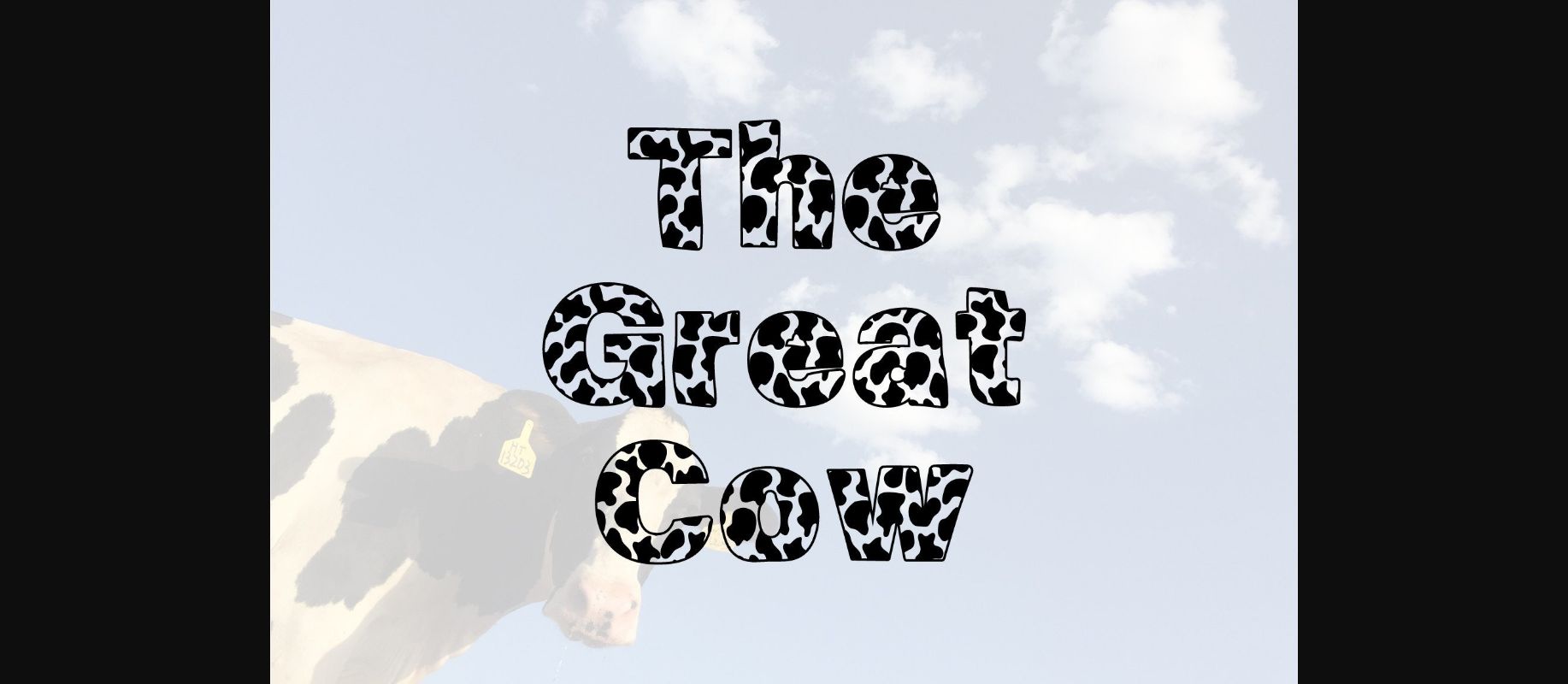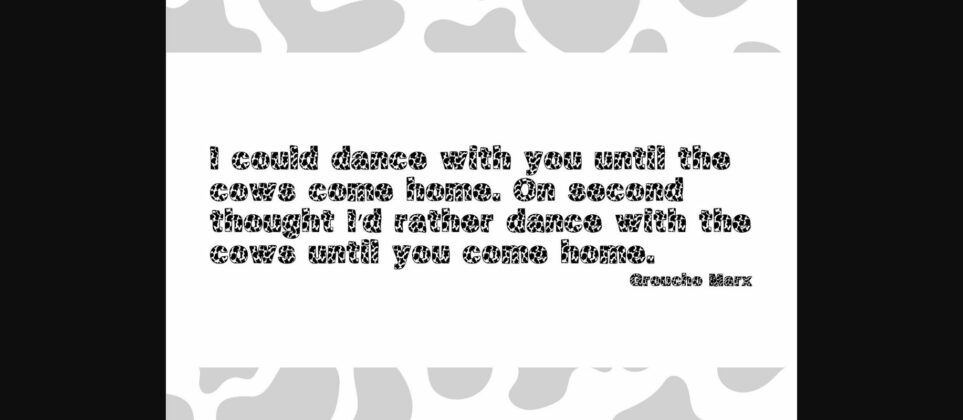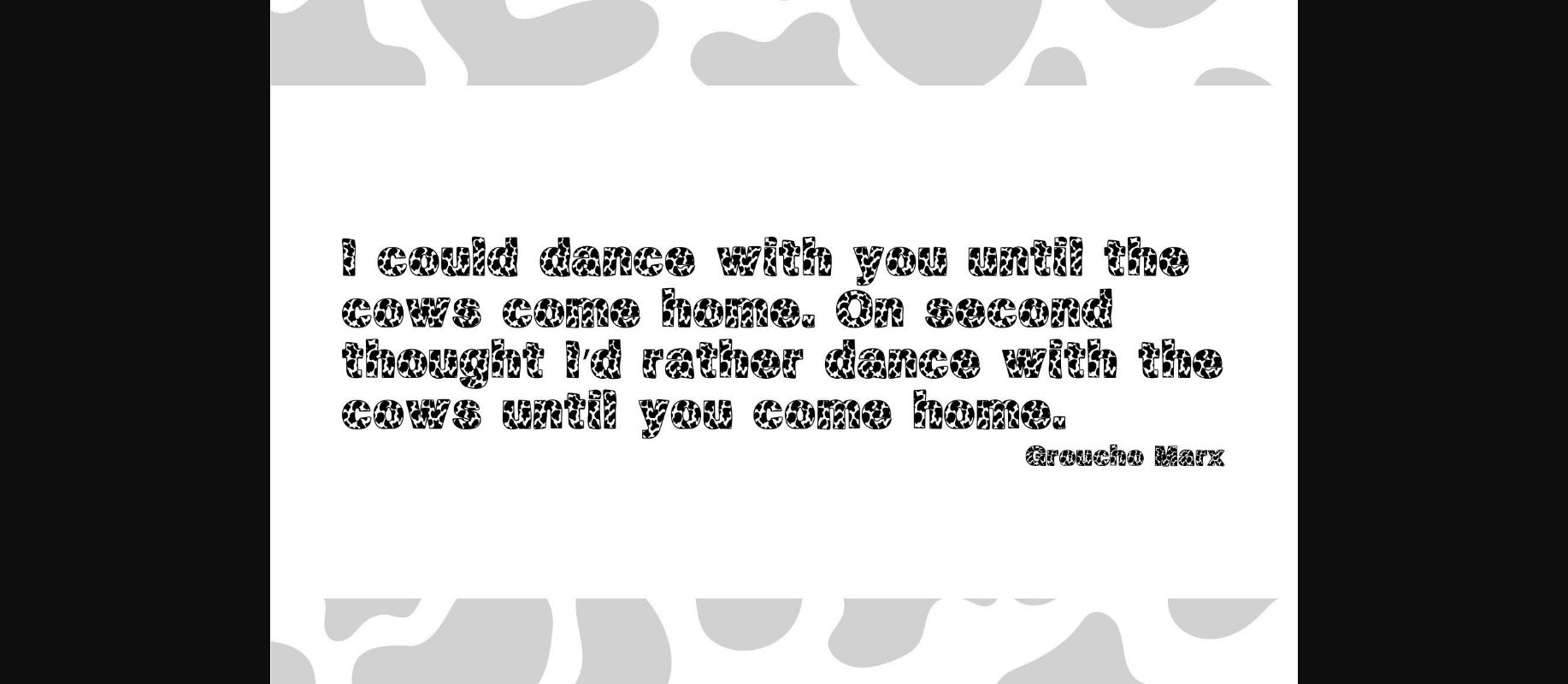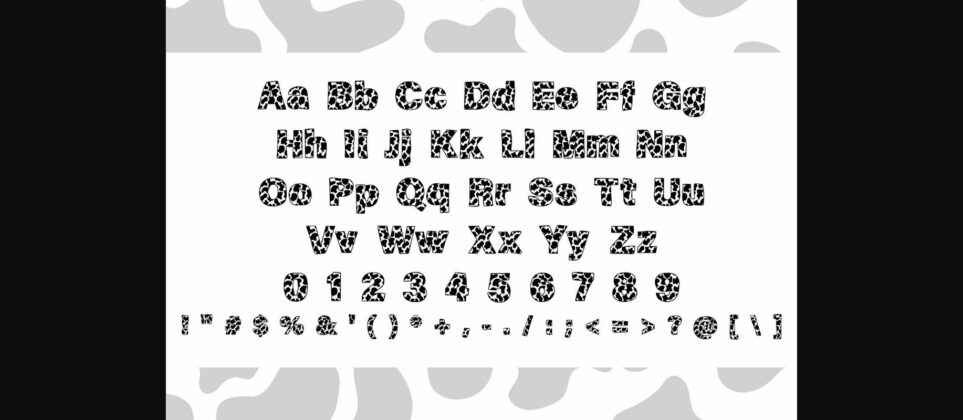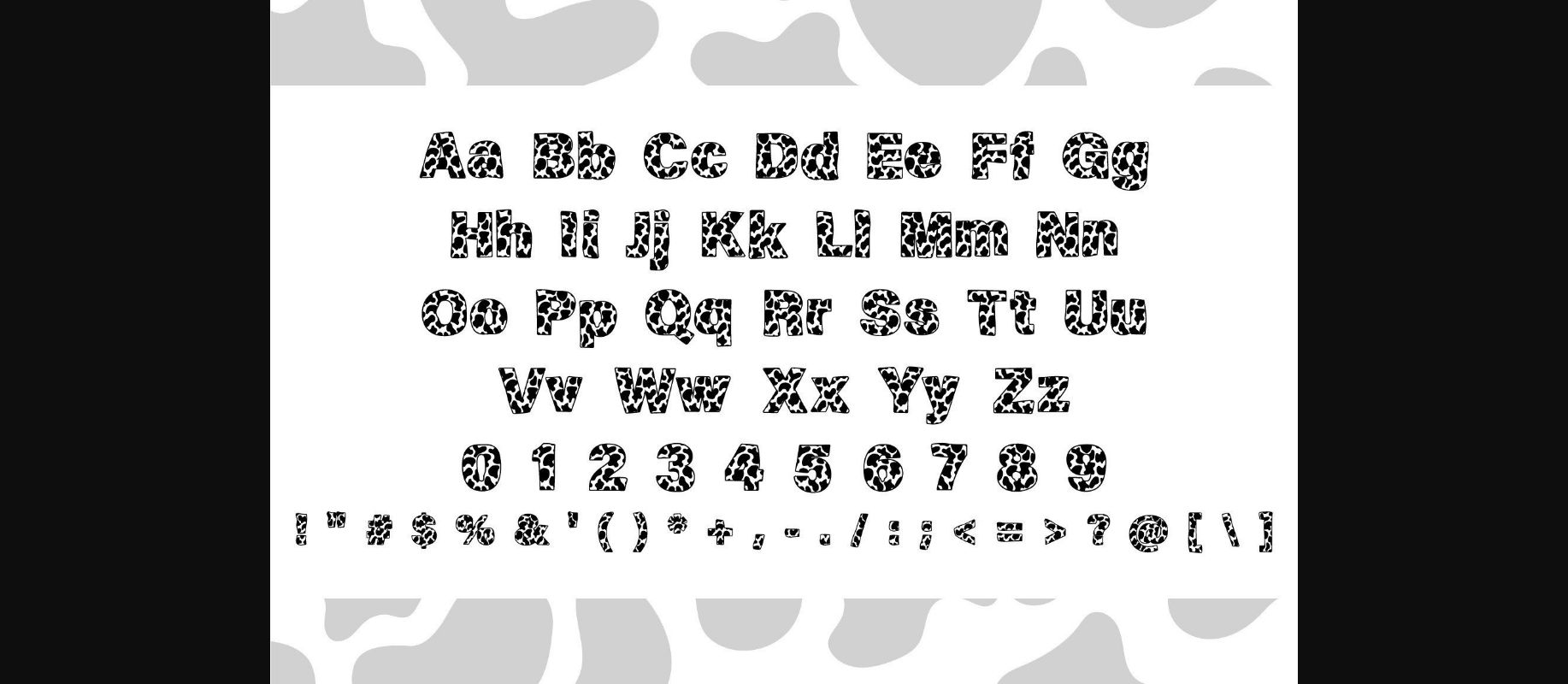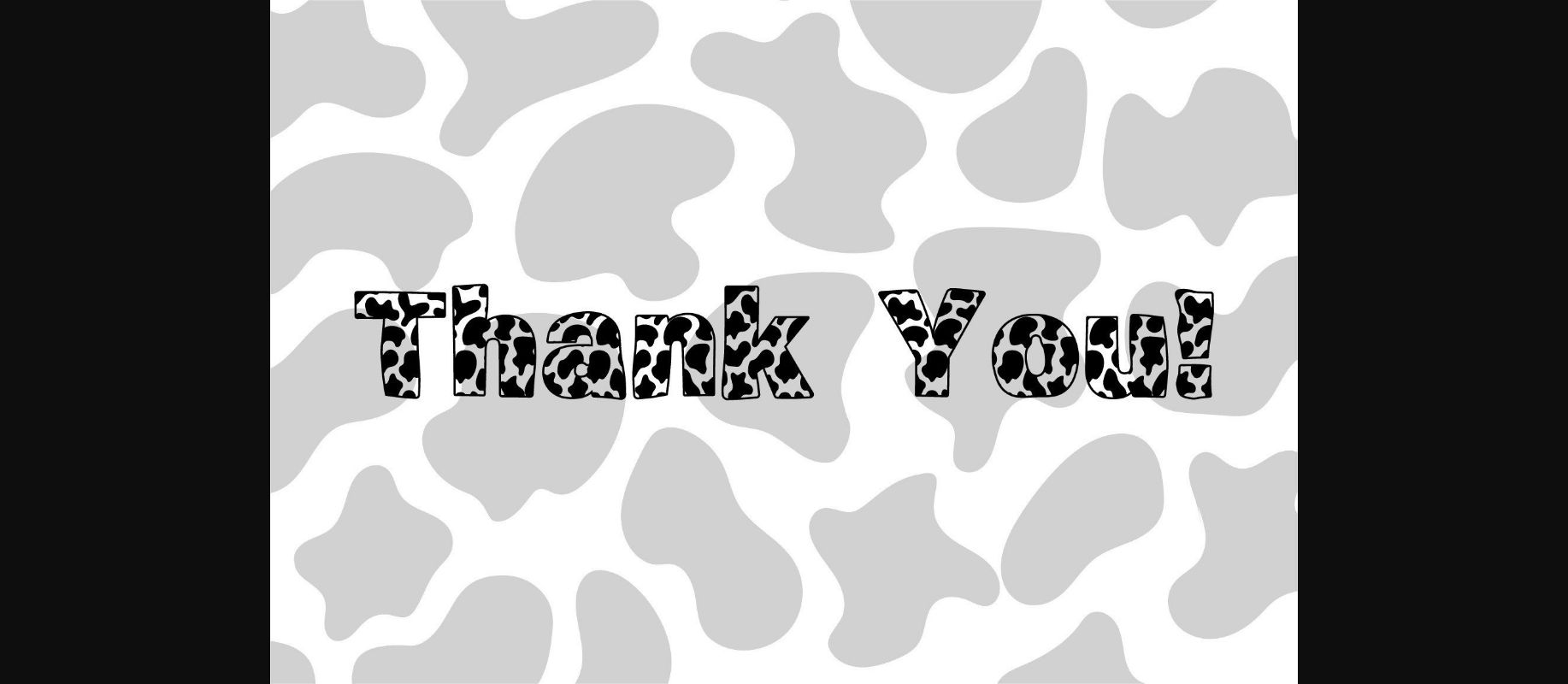
The Great Cow Font
About The Great Cow Font
The Great Cow is an adorable decorative display font with a cow pattern. It is perfect for classroom decorations, school projects, or anything that needs a fun and playful touch.